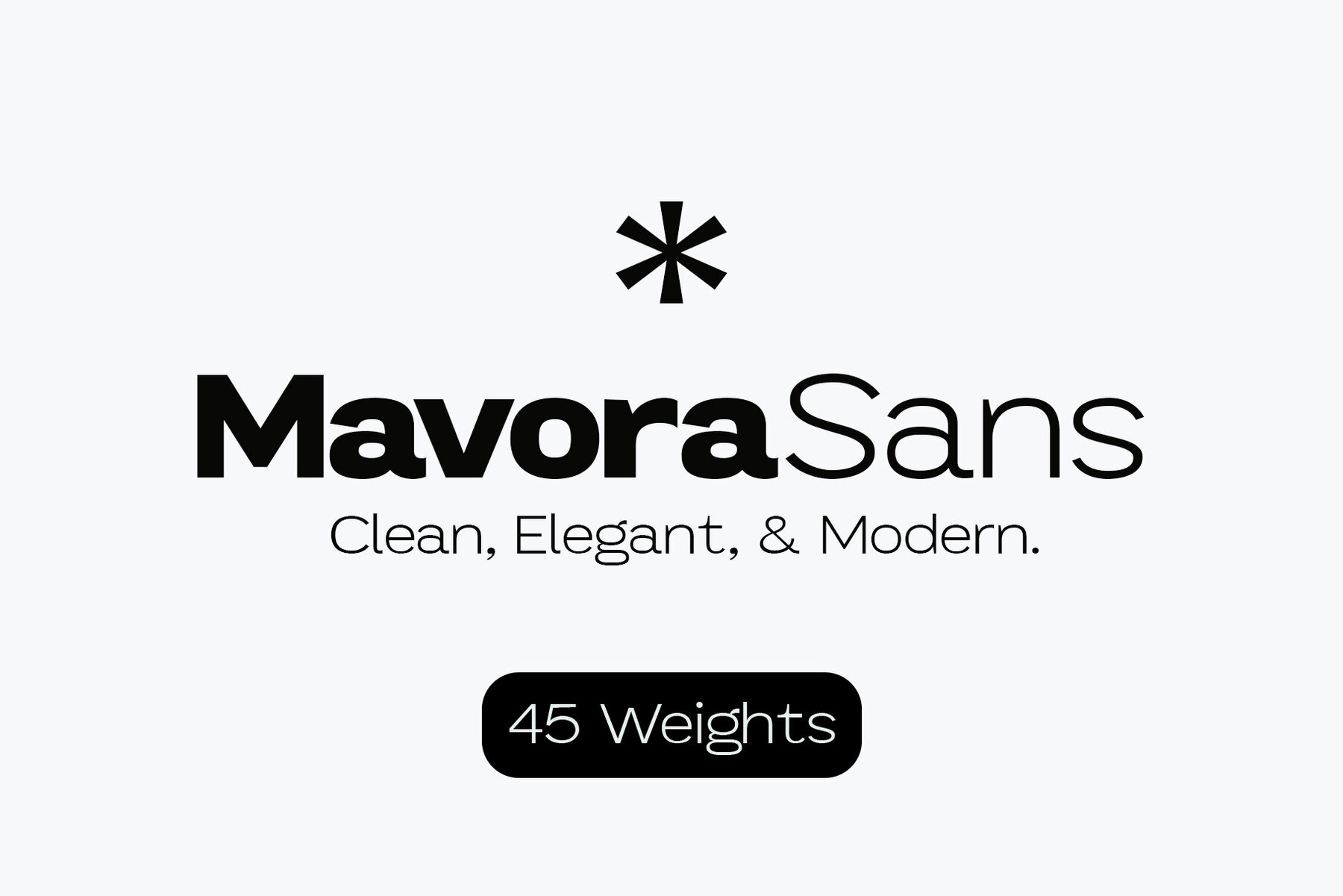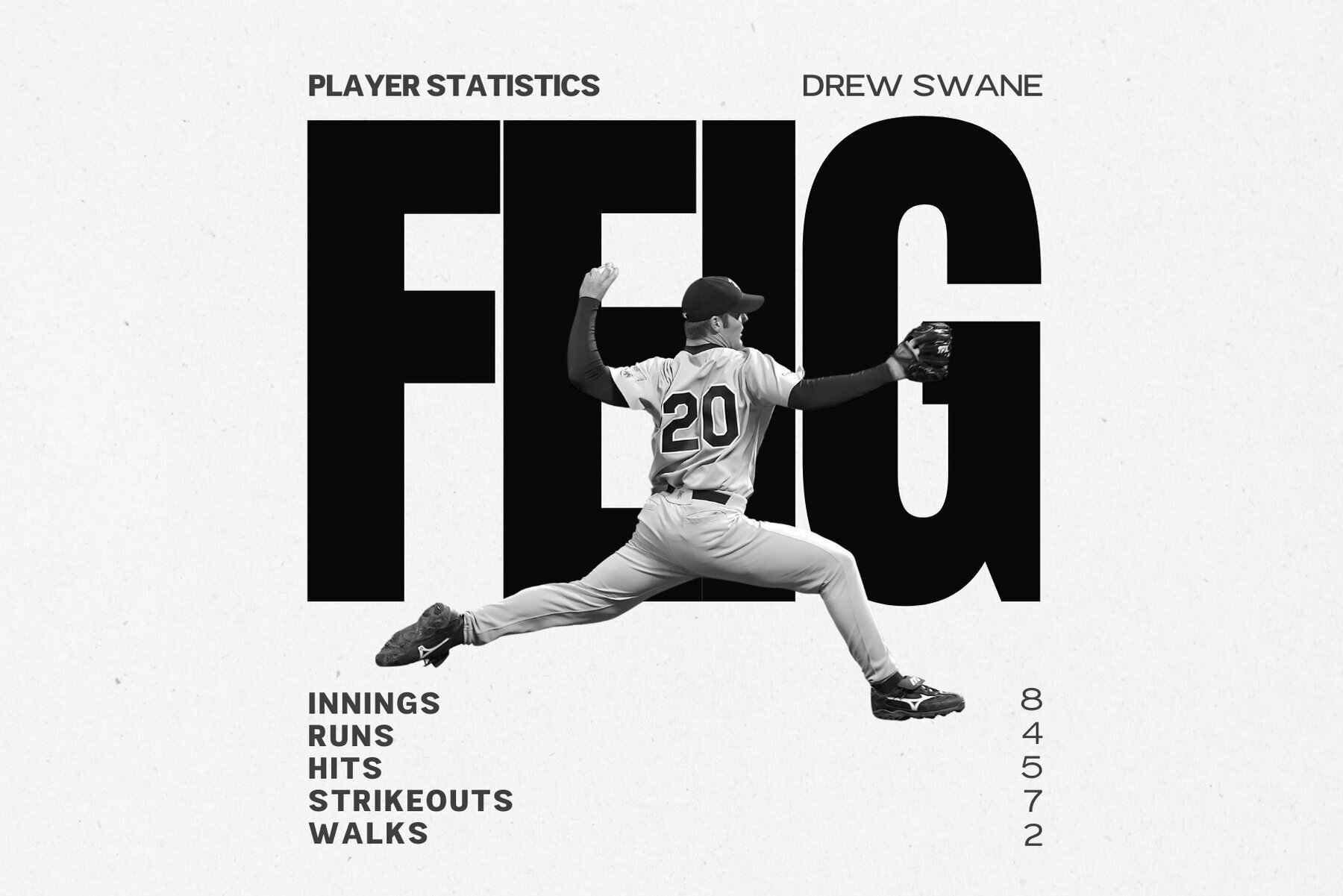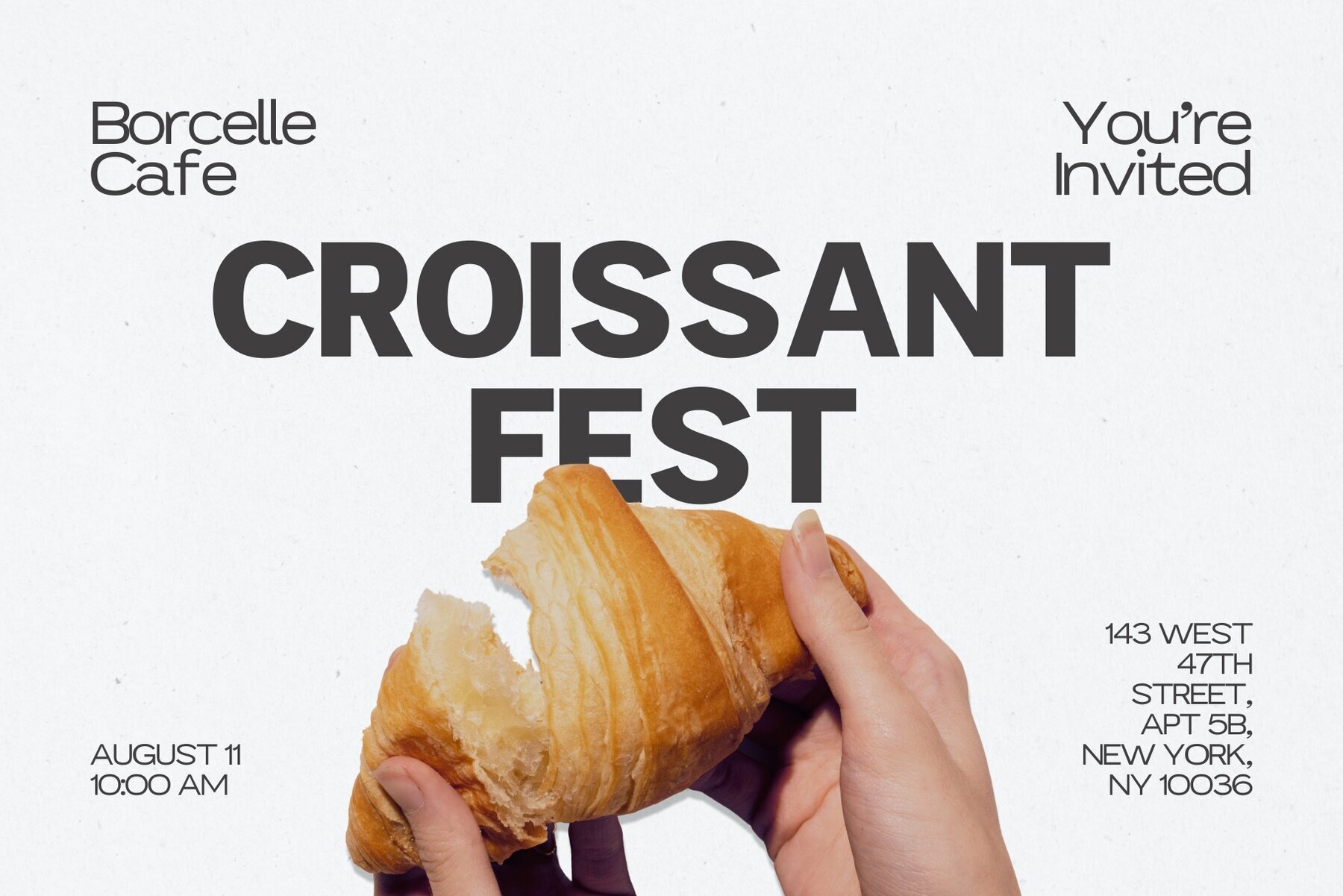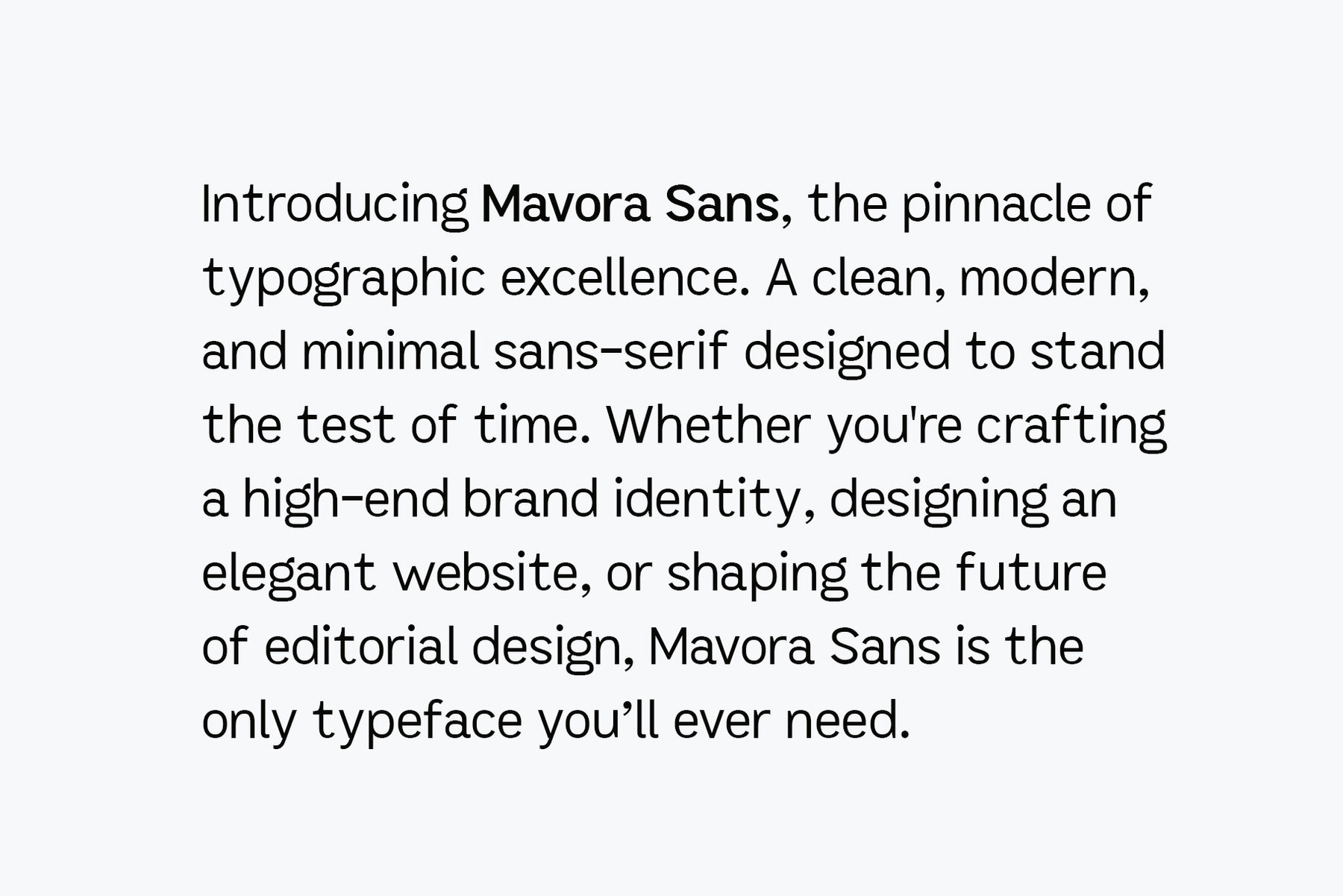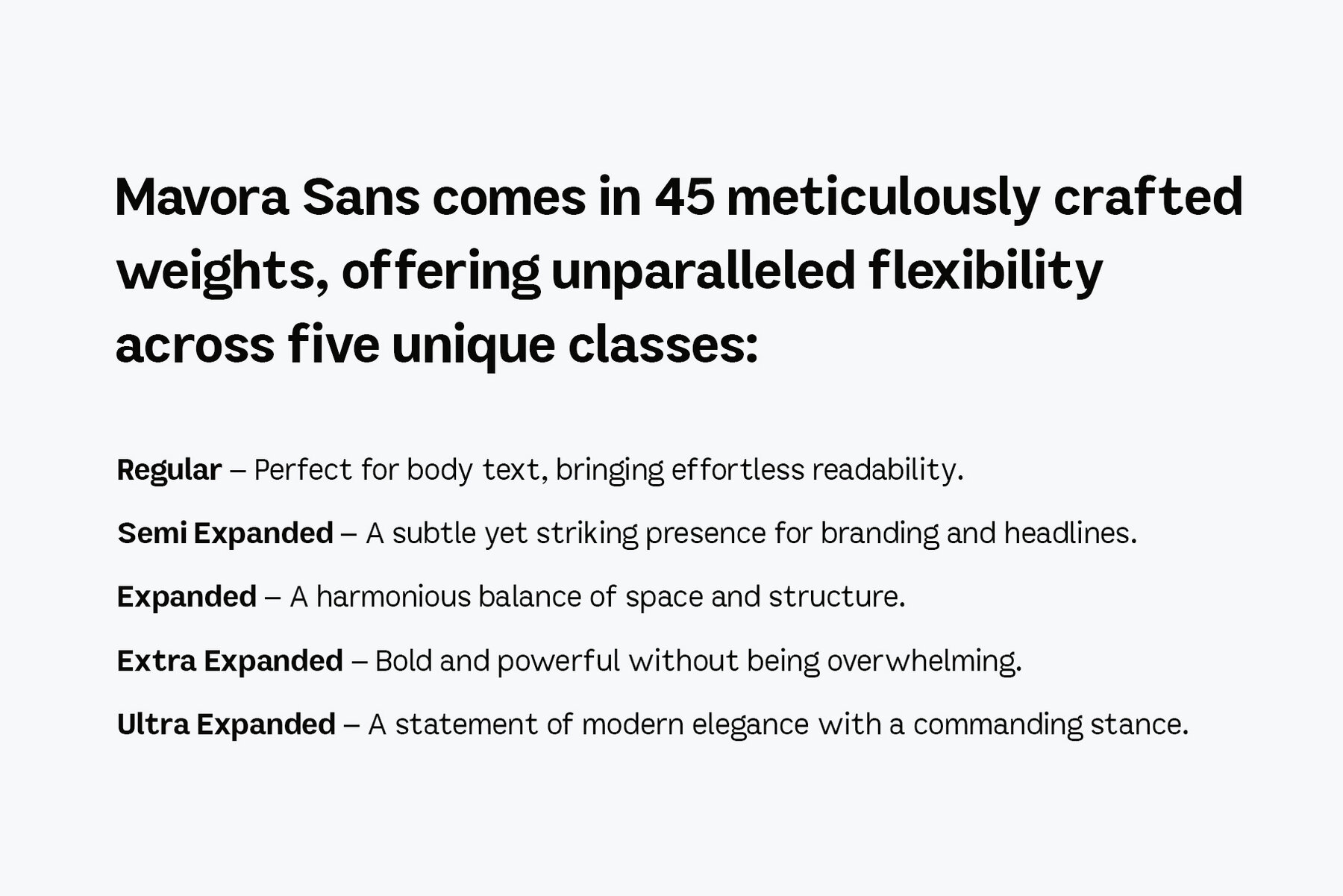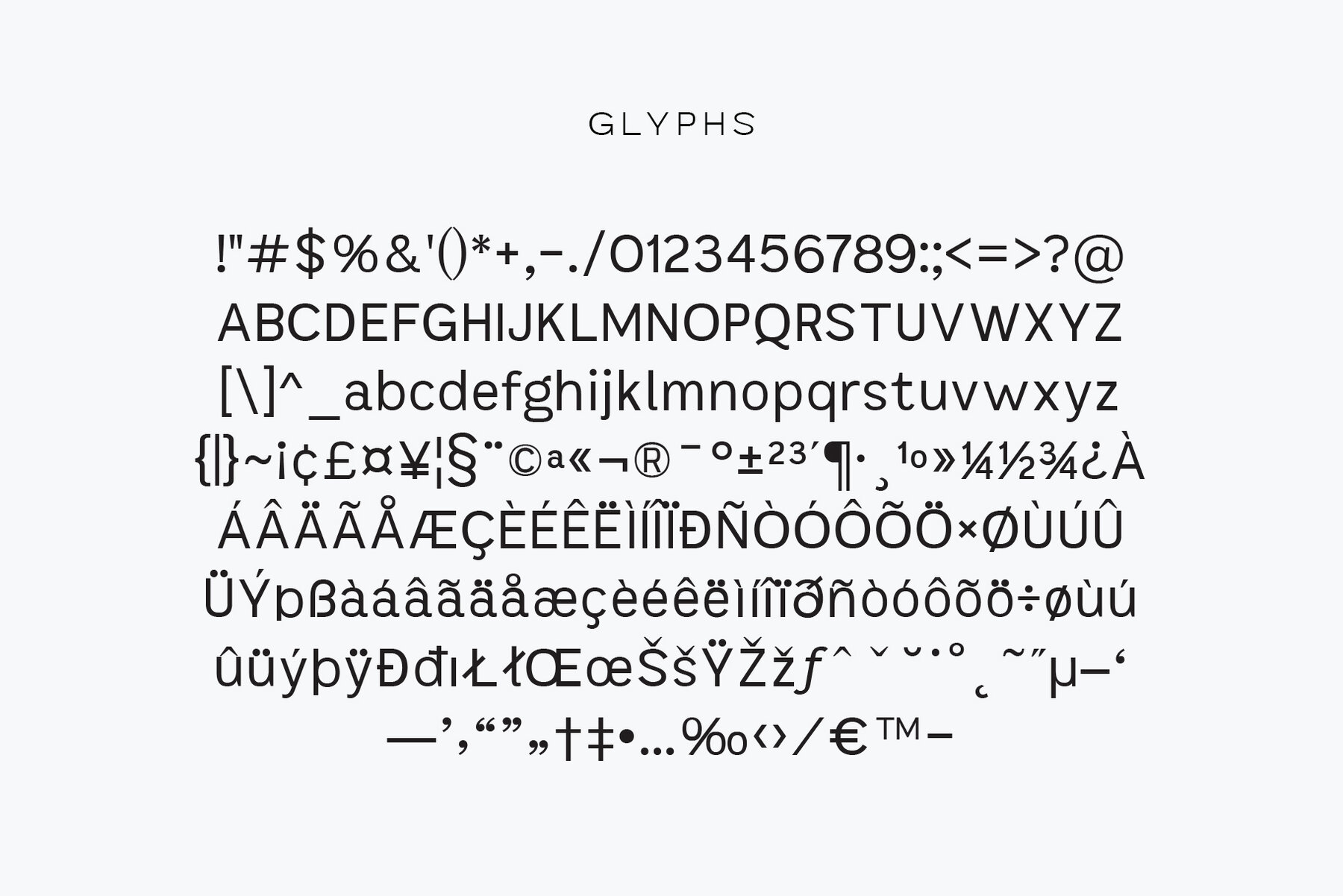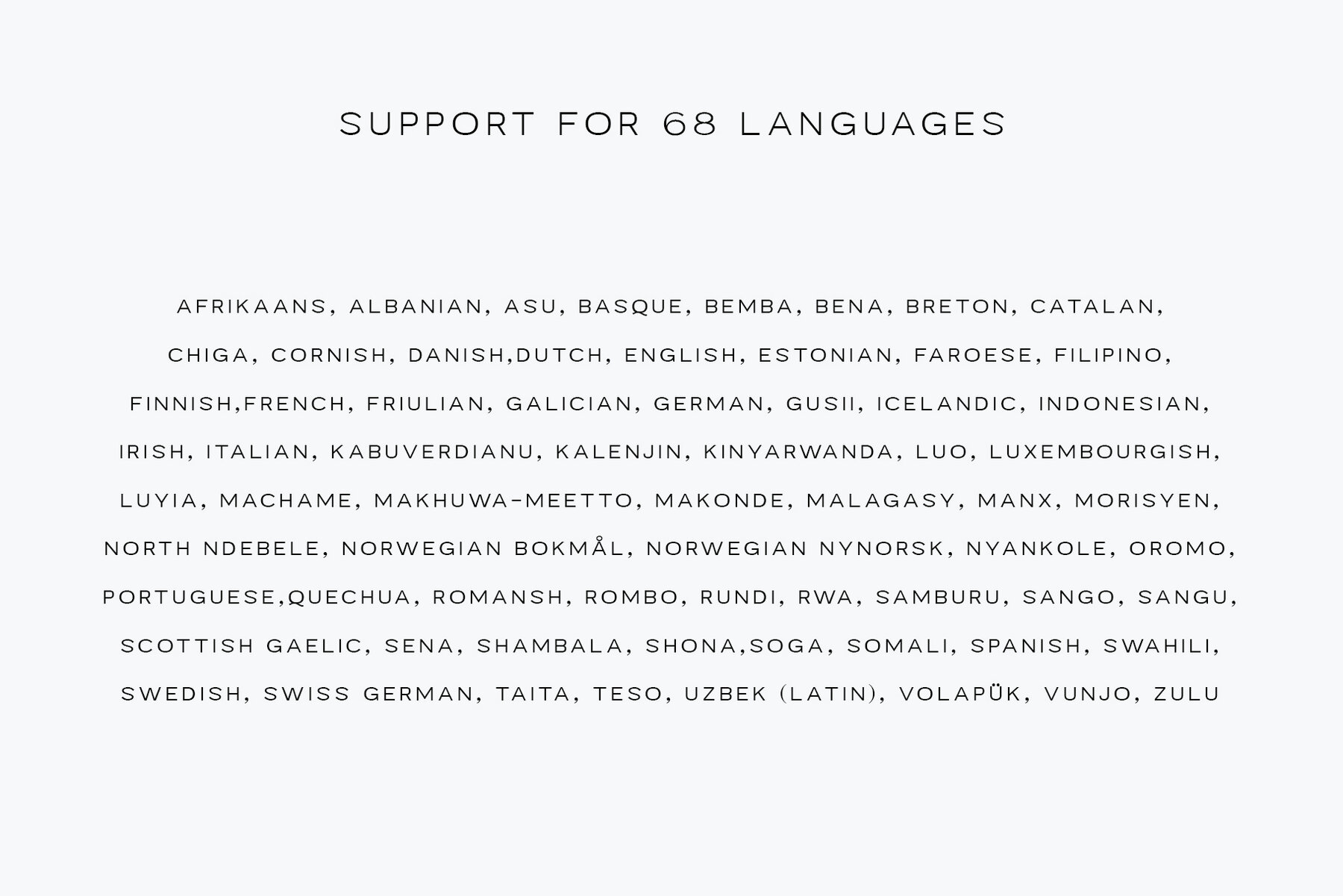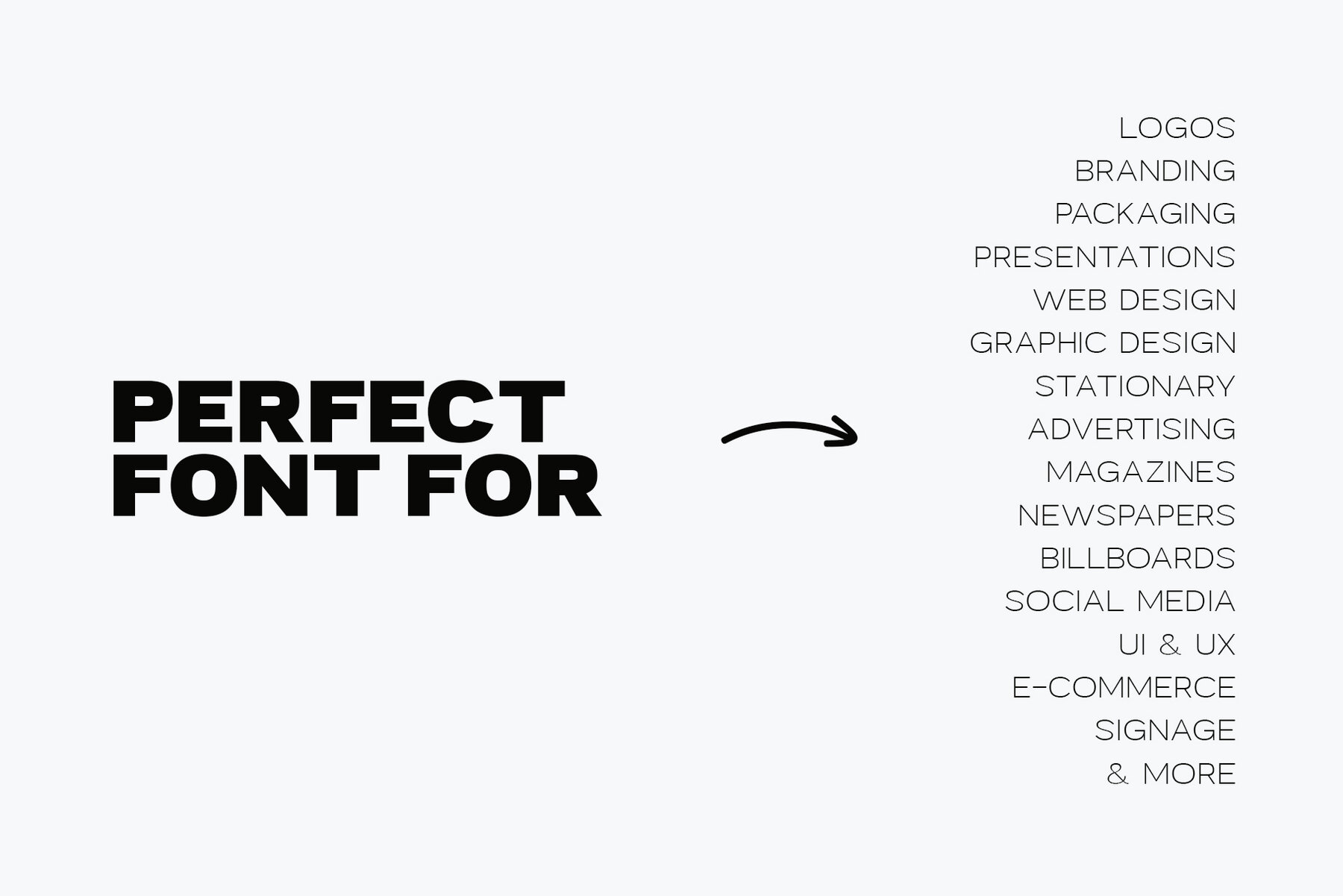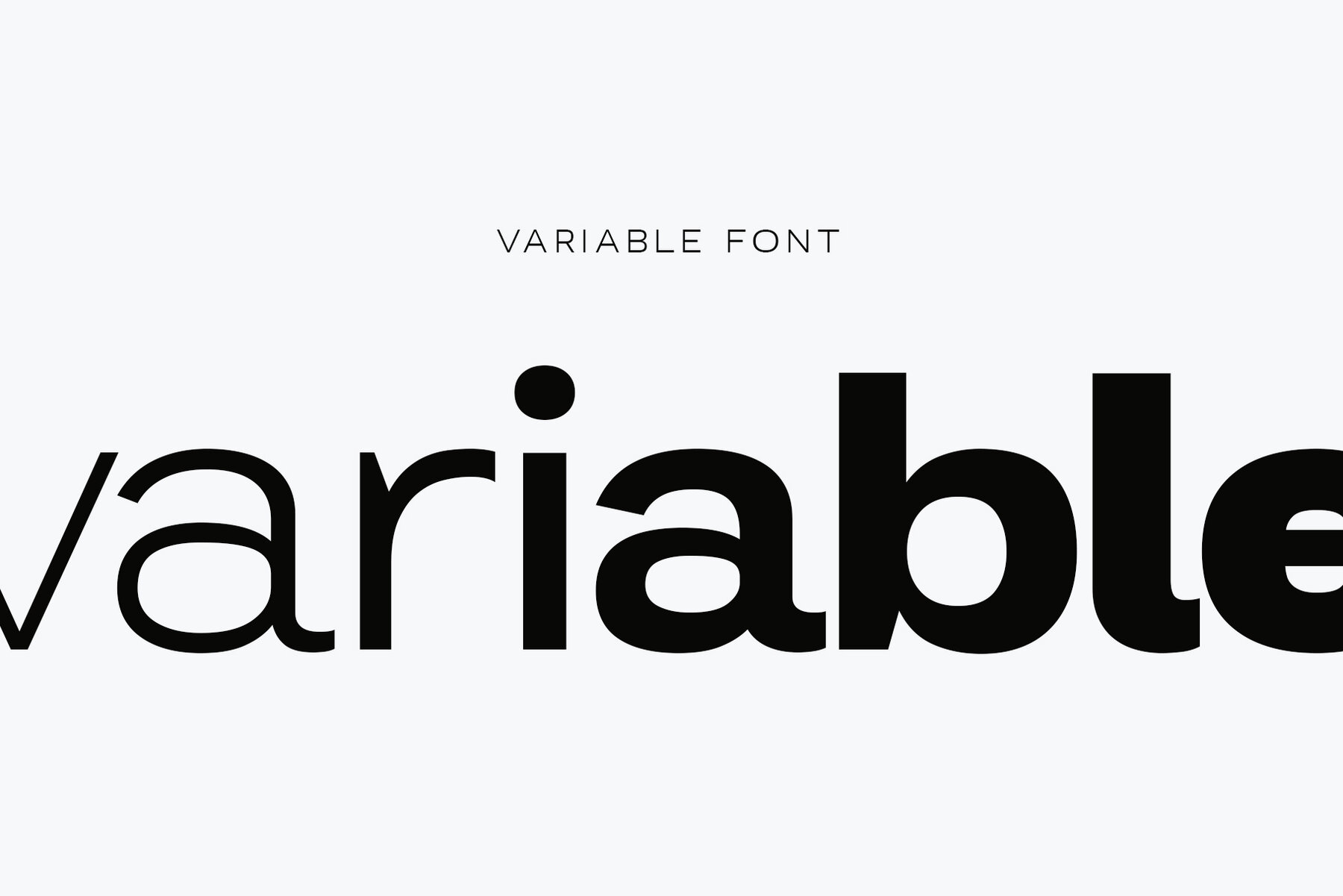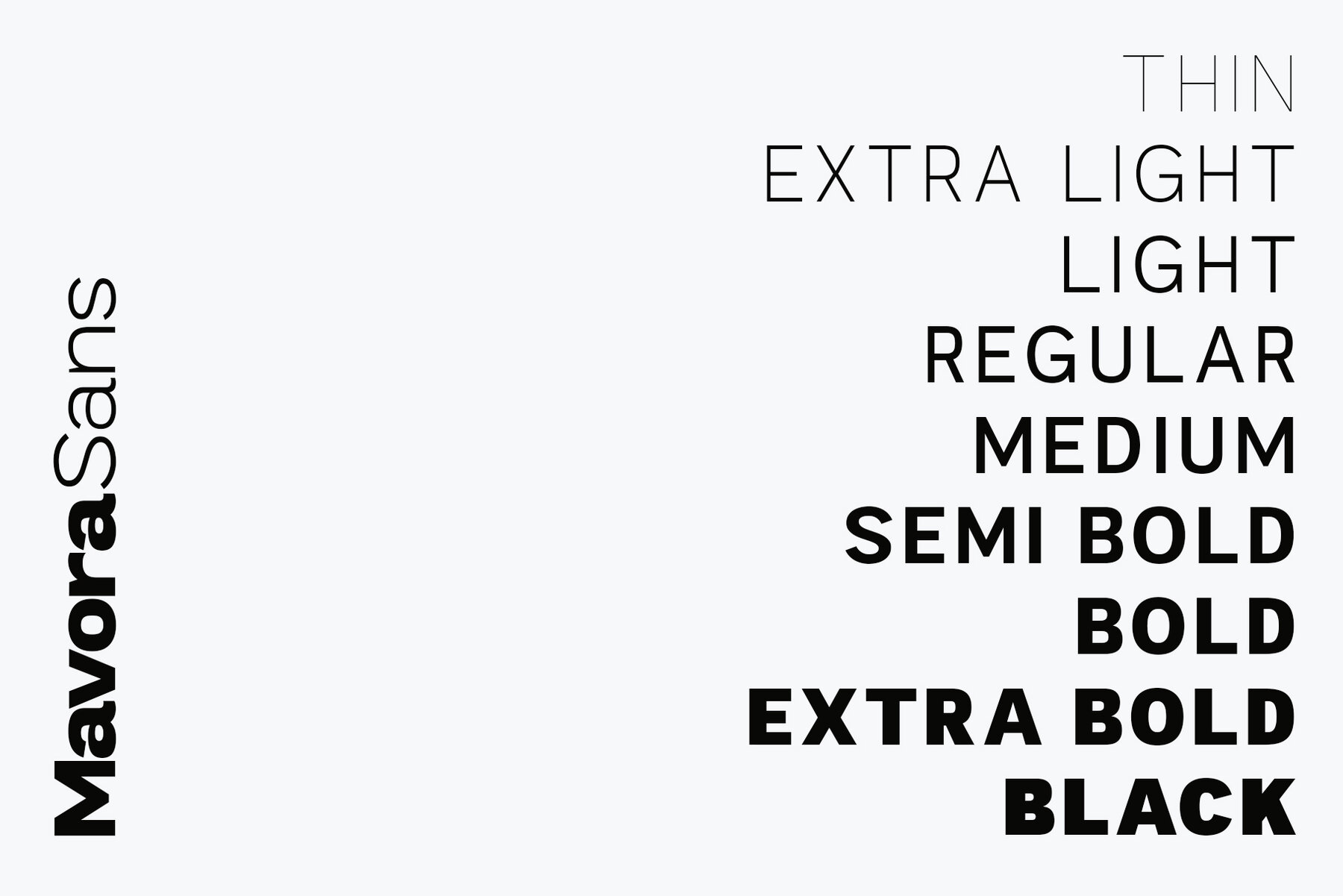
Mavora Sans Font
Introducing Mavora Sans, the pinnacle of typographic excellence. A clean, modern, and minimal sans-serif designed to stand the test of time. Whether you're crafting a high-end brand identity, designing an elegant website, or shaping the future of editorial design, Mavora Sans is the only typeface you’ll ever need. Some fonts fade with time. Mavora Sans is forever. With a design that is timelessly modern, this is a typeface that will look just as stunning 100 years from now as it does today. Whether you’re creating for print, digital, UI/UX, branding, advertising, or signage, Mavora Sans adapts seamlessly to any project.